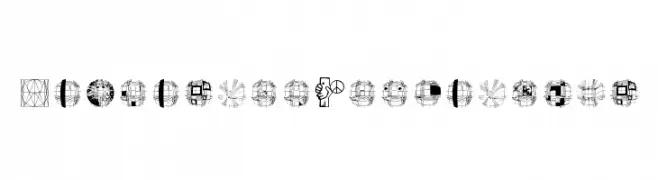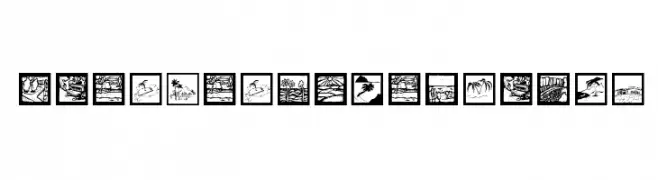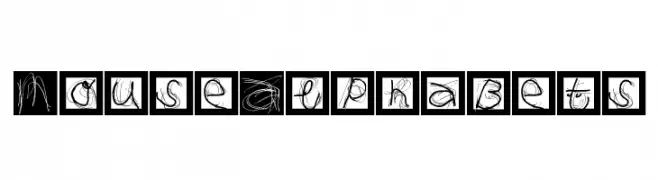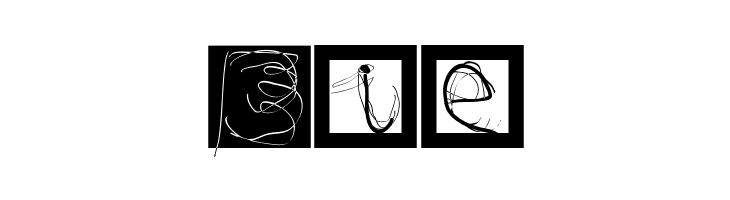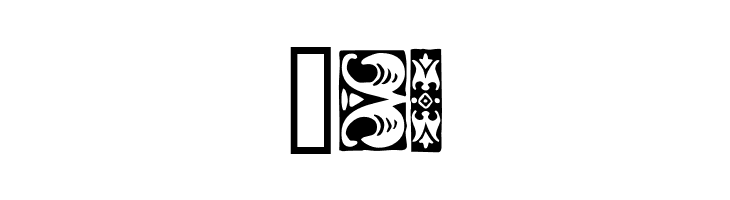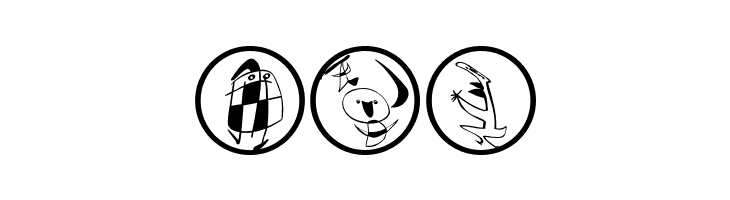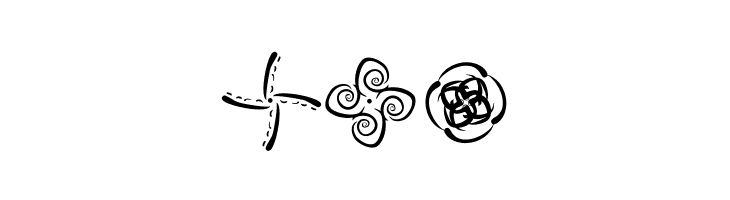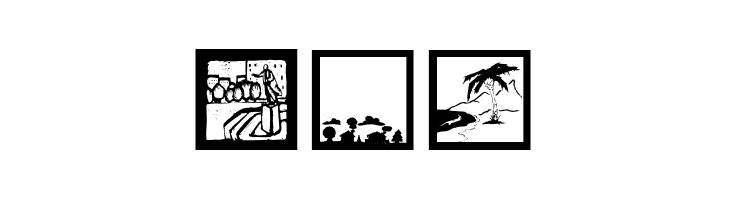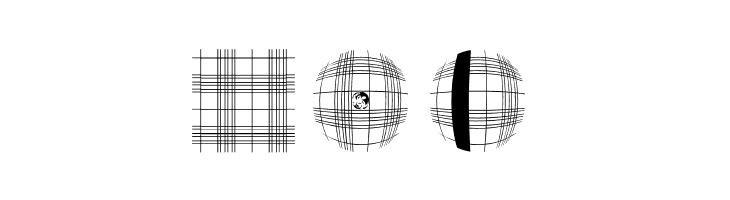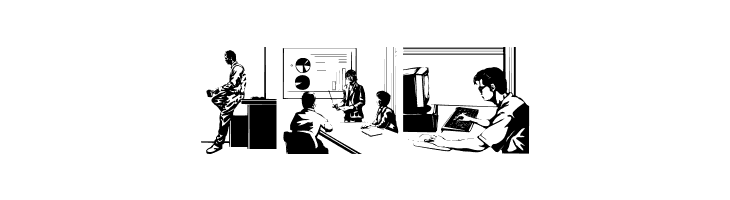
• OrnaRosettes
Highly decorative ornamental motif font with floral and geometric elements.
• MouseAlphabets
A whimsical, mouse-inspired font with delicate, flowing lines.
• Orna 3
• MirosWitchesMedium
Whimsical, abstract illustrated font with playful circular icons.
• OhRosetta
Abstract, ornamental symbols with intricate, decorative designs.
• LandAndTownScapes
Hand-drawn pictogram font featuring landscape and townscape illustrations.
• GeometricWanderlust
Abstract geometric and illustrative display font with intricate linework.
• BusinessPeople
Vintage-style illustrated business people icons for display use.
• Stages
A bold, decorative font with a grid-like, three-dimensional design.
• AstroDingbats
A decorative collection of zodiac and astrology-themed symbols and illustrations.